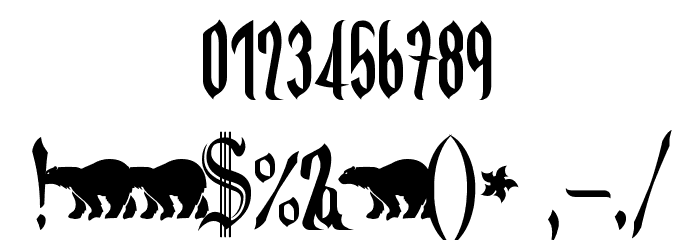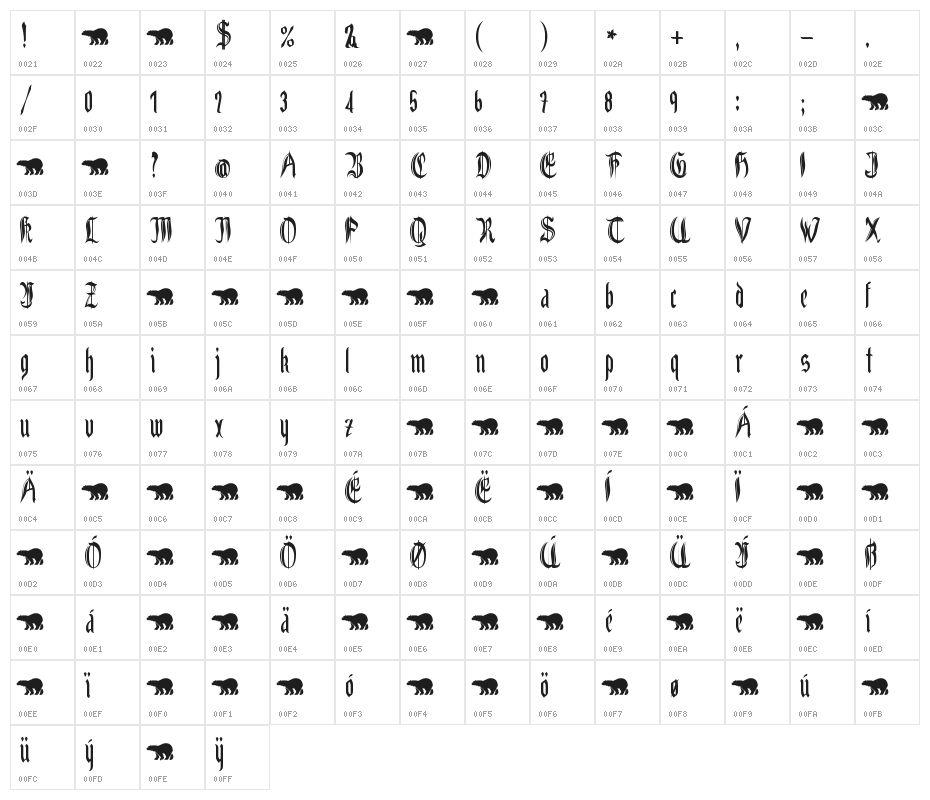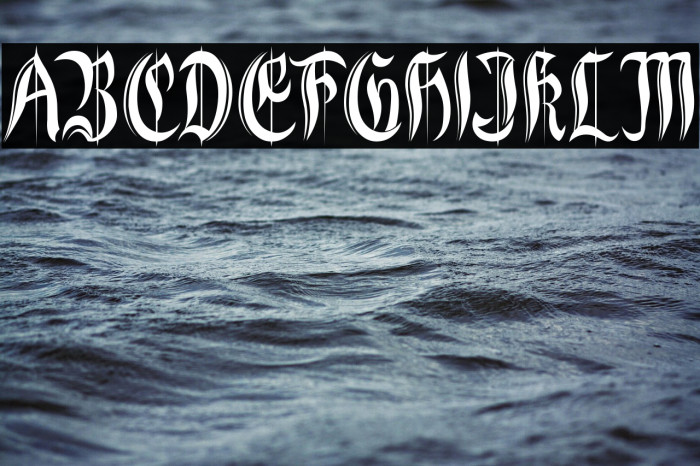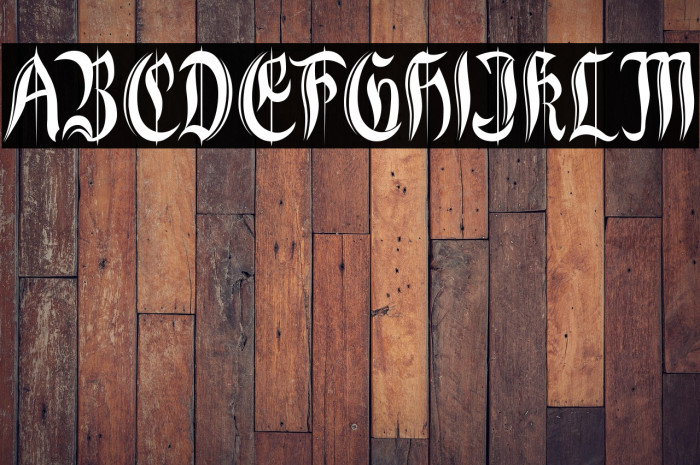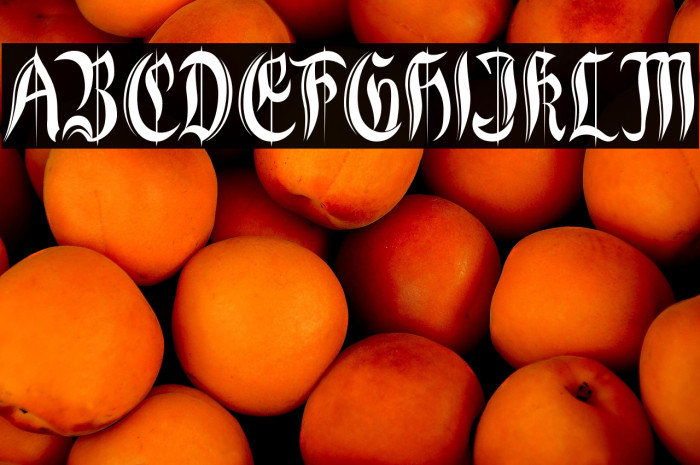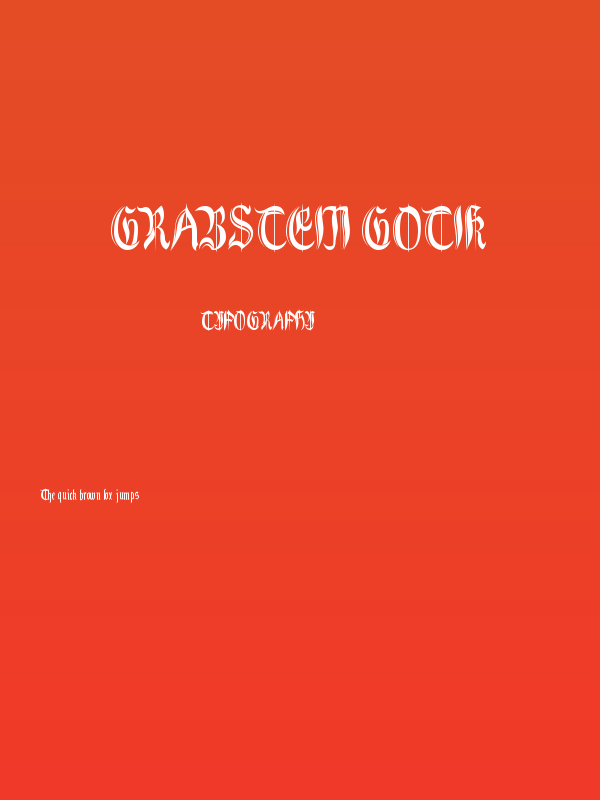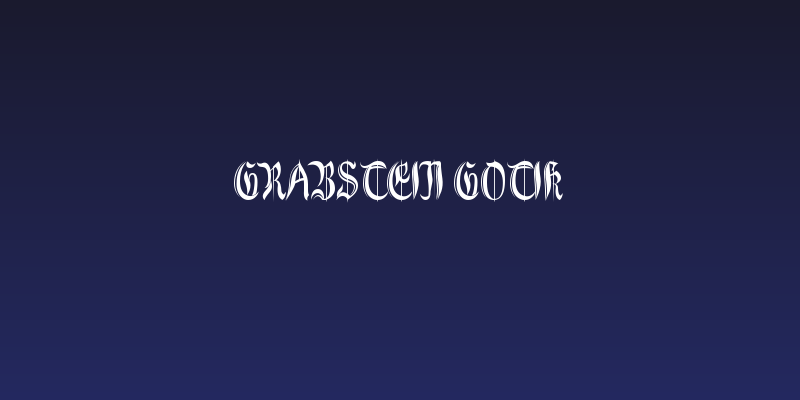
Grabstein Gotik Font
Grabstein Gotik Description
This font exudes a classic Gothic style, characterized by its intricate and ornate letterforms. The uppercase letters are particularly elaborate, with sharp, angular lines and decorative flourishes that evoke a sense of historical elegance. The lowercase letters maintain a similar aesthetic, though they are slightly more subdued, providing a balanced contrast to the uppercase. The numerals are bold and consistent with the overall Gothic theme, featuring similar angular and pointed elements. Special characters are uniquely styled, adding to the font's distinct personality. This font is perfect for projects that require a touch of medieval or historical flair, such as themed event invitations, book covers, or branding for vintage-inspired products.
| Proposed Projects | Ideal for themed event invitations, historical book covers, or vintage-inspired branding. |